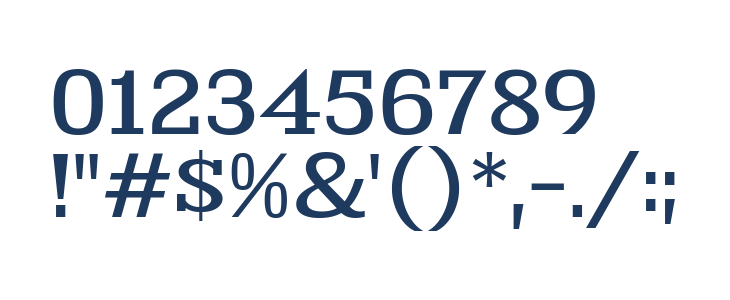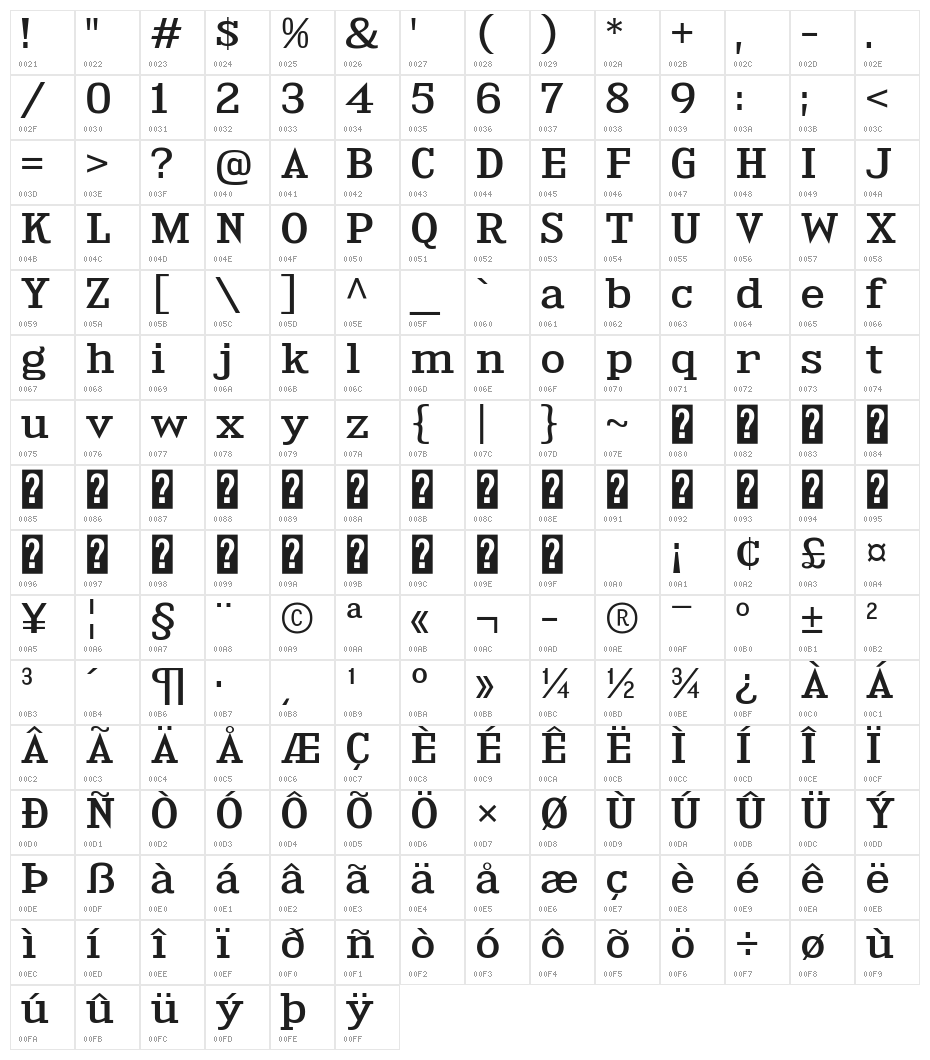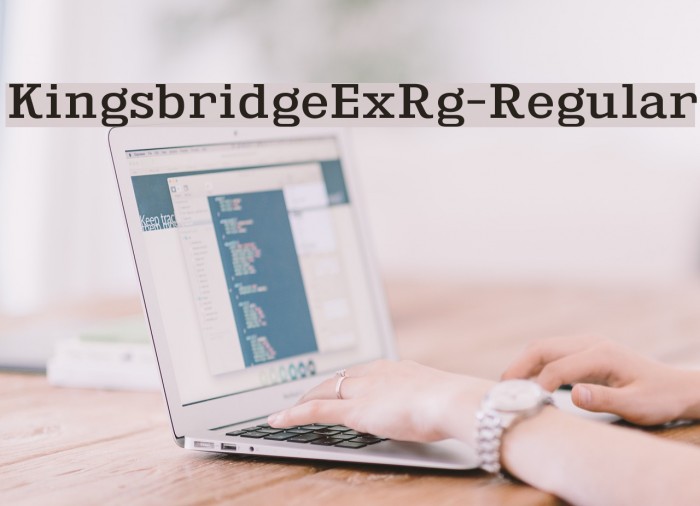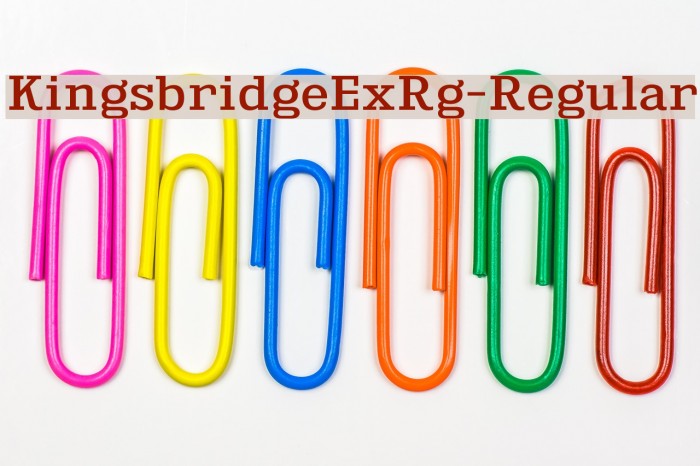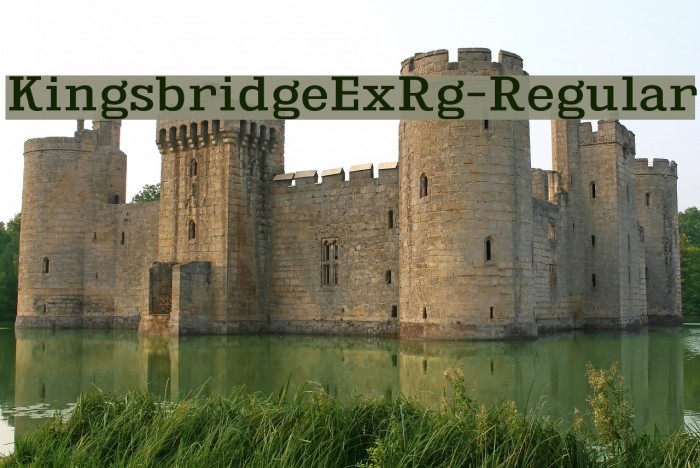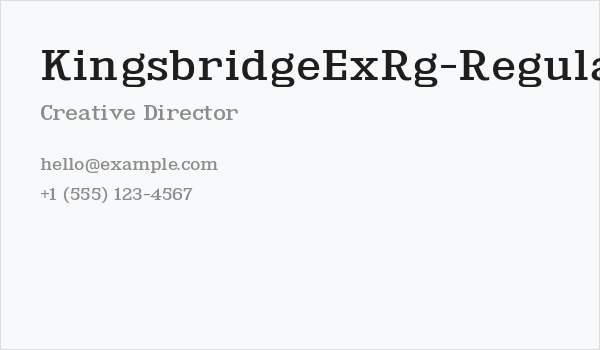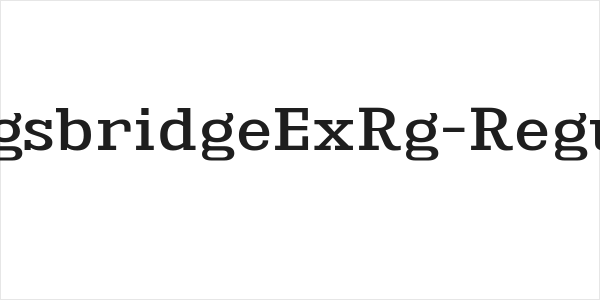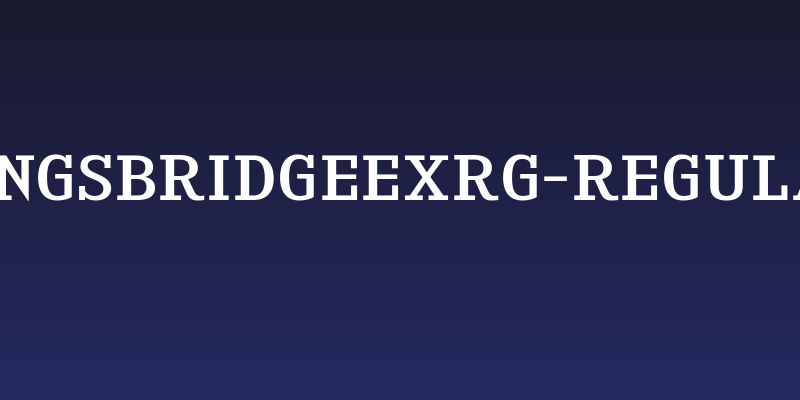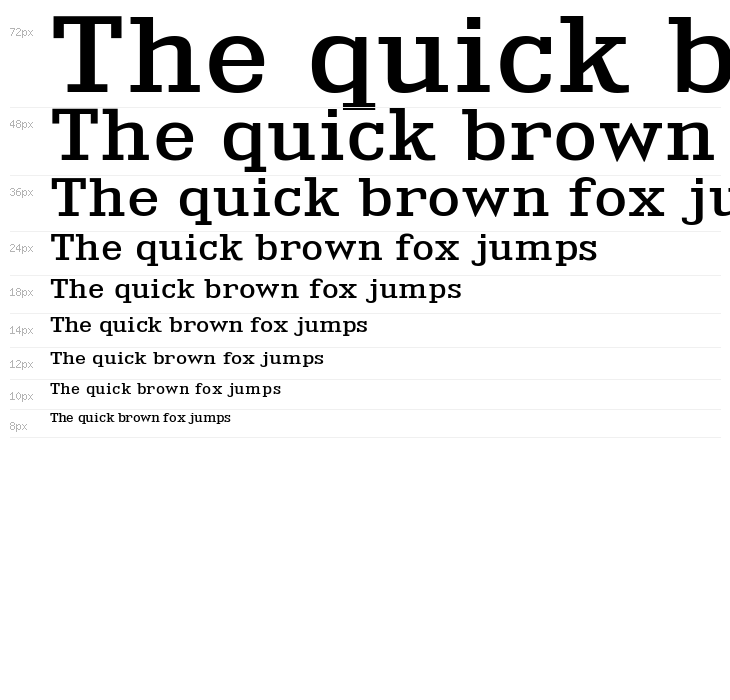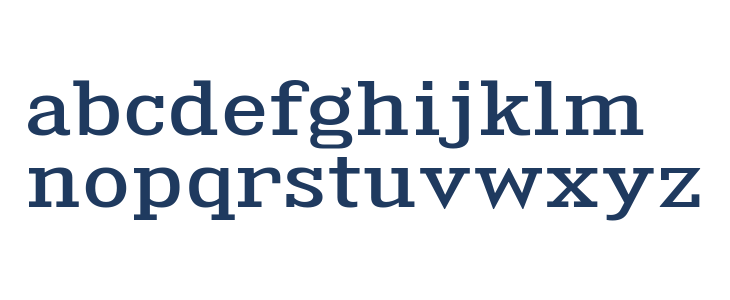
KingsbridgeExRg-Regular Font
KingsbridgeExRg-Regular Description
This font features a classic serif style with strong, bold strokes and a traditional feel. The uppercase letters are prominent and commanding, while the lowercase letters maintain a consistent and readable form. The numerals are clear and well-defined, making them suitable for both display and text purposes. Special characters are elegantly integrated, maintaining the overall aesthetic of the typeface. The design is versatile, offering a timeless appeal that can be used in various contexts, from editorial design to branding.
| Proposed Projects | Ideal for editorial design, book covers, branding, and formal invitations. |